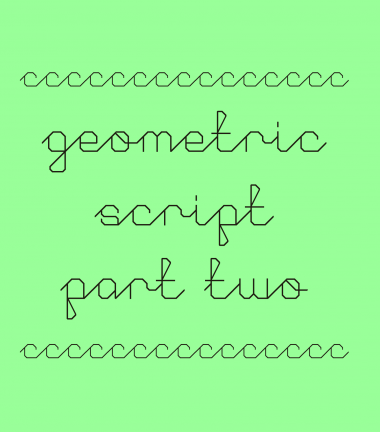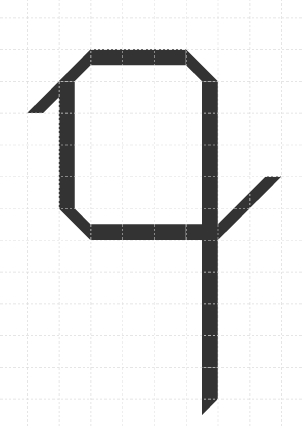
What I always meant by making the q look less like the g was omitting the curl:
i see what you mean. i think i've made them more distinct now.
That looks good.
Nice version.